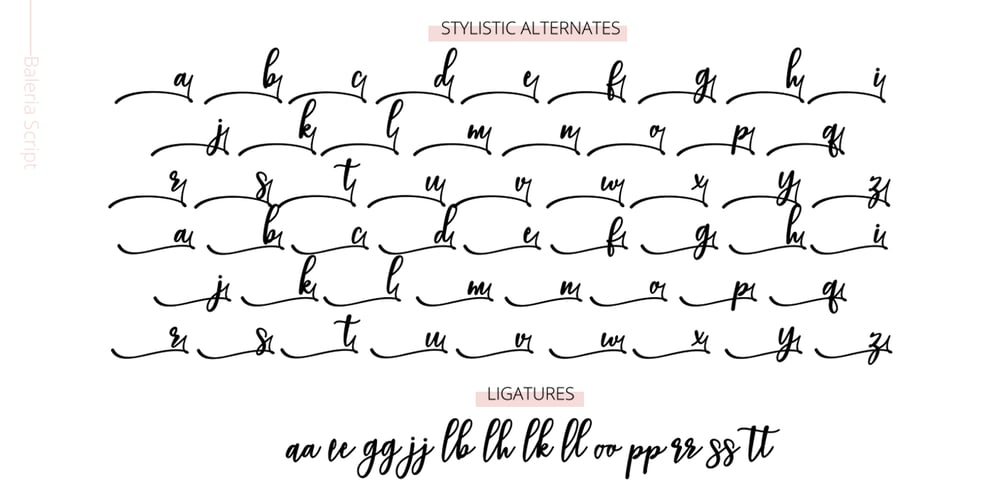
Baleria Script
Baleria Script font
Baleria Script Font Family was designed by Fajriadi and published by Masinong Studio. Baleria Script contains 1 styles and family package options. Baleria Script a new fresh & modern script with a handmade calligraphy style, decorative characters and a dancing baseline! So beautiful on invitation like greeting cards, branding materials, business cards, quotes, posters, and more! Baleria Script come with 616+ glyphs. The alternative characters were divided into several OpenType features such as Swash, Stylistic Sets, Stylistic Alternates, Contextual Alternates. The OpenType features can be accessed by using Open Type savvy programs such as Adobe Illustrator, Adobe InDesign, Adobe Photoshop Corel Draw X version, And Microsoft Word. And this Font has given PUA unicode (specially coded fonts). So that all the alternate characters can easily be accessed in full by a craftsman or designer. Baleria Script includes Uppercase & Lowercase, International Language & Symbols Support, Punctuation & Number, PUA Unicode Range Standard Stylistic Alternates, Stylistic Set 1-25, and Character Variant Contextual. If you don’t have a program that supports OpenType features such as Adobe Illustrator and CorelDraw X Versions, you can access all the alternate glyphs using Font Book (Mac) or Character Map (Windows). If you have any question, don’t hesitate to contact me by email bandithandmade17@gmail.com Thanks and happy designing 🙂 Thank You for purchase!